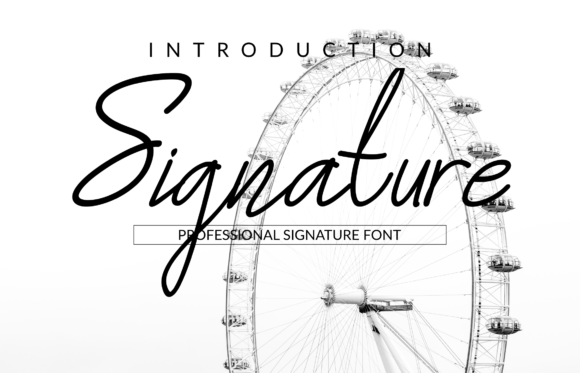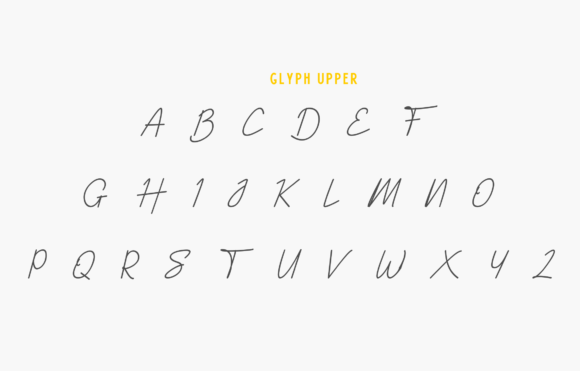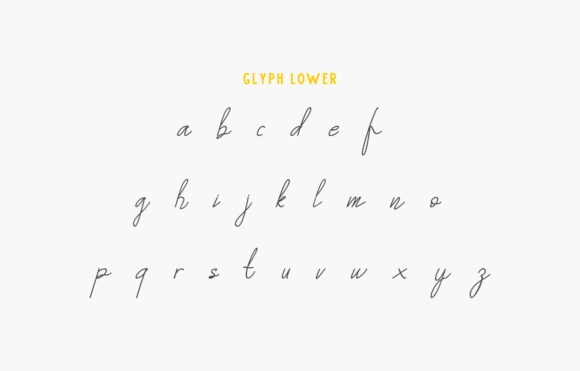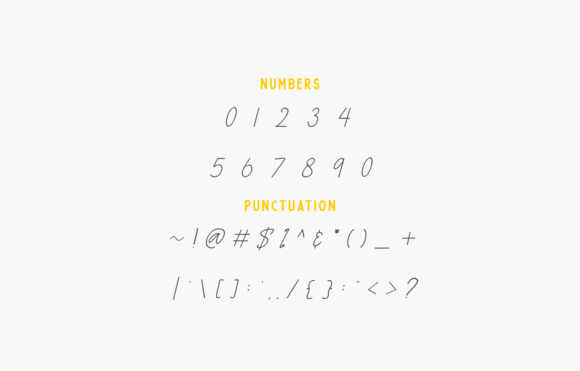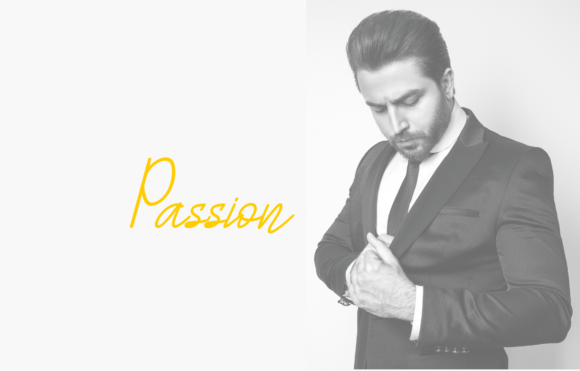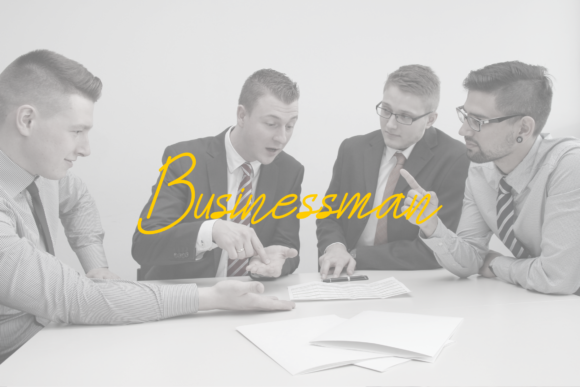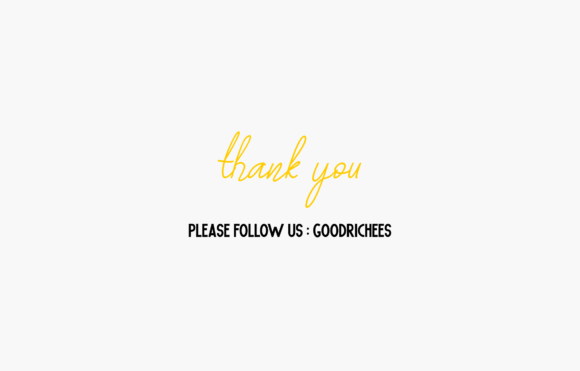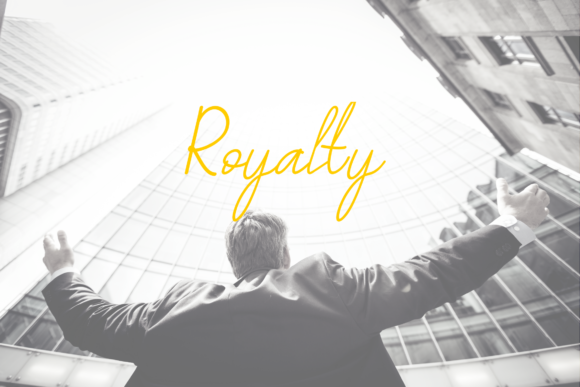
Introducing Signature, a stylish and delicate script font that brings elegance and sophistication to your designs. With its clean, thin, and smooth vibe, Signature is the perfect choice to add a touch of refinement to any project.
The beauty of Signature lies in its simplicity and understated elegance. Its clean and thin lines create a sense of sophistication, while its smooth curves give it a graceful and fluid appearance. Whether you’re designing logos, branding materials, invitations, or any other creative project, Signature will elevate your designs to a new level of style.
Signature is versatile and adaptable, making it suitable for a wide range of applications. Its delicate and refined nature makes it ideal for luxury branding, high-end fashion, beauty products, and upscale events. Its clean and smooth strokes make it highly legible, ensuring that your message is conveyed clearly and effortlessly.
When used in signatures and logos, Signature adds a personal and distinctive touch. Its stylish and delicate aesthetic creates a sense of exclusivity and professionalism, making it perfect for individuals and businesses looking to make a lasting impression. It can also be used in wedding invitations, stationery, and other special event designs, bringing an air of elegance and sophistication to the occasion.
In addition to its aesthetic appeal, Signature is also highly versatile in terms of its application. It can be easily combined with other fonts and design elements to create unique and captivating compositions. Its clean and thin style makes it suitable for both large and small sizes, ensuring that it looks stunning across various mediums and platforms.
So, embrace the stylish and delicate nature of Signature and explore the endless possibilities it offers. Let its clean, thin, and smooth vibe elevate your designs and add a touch of refinement to your projects. With Signature, you’ll create visually stunning and memorable designs that leave a lasting impression.